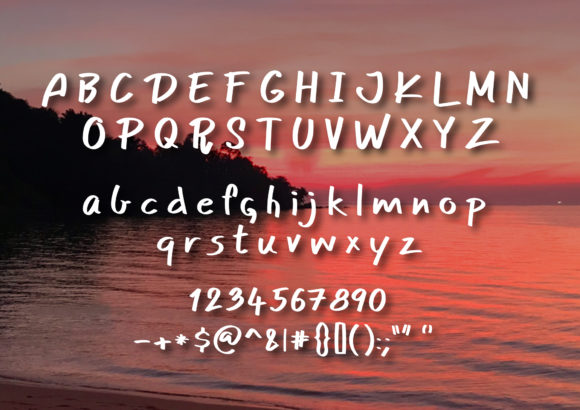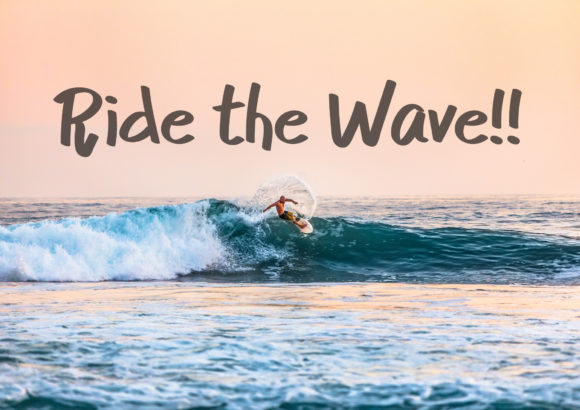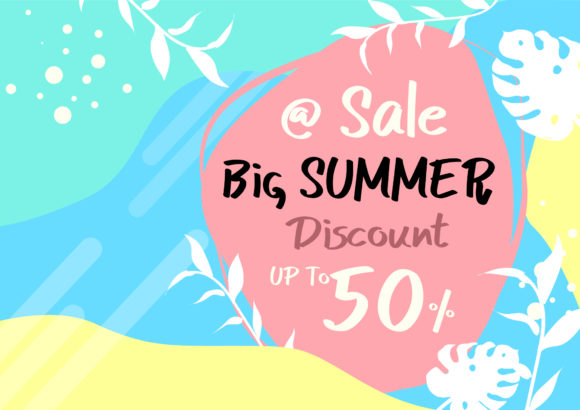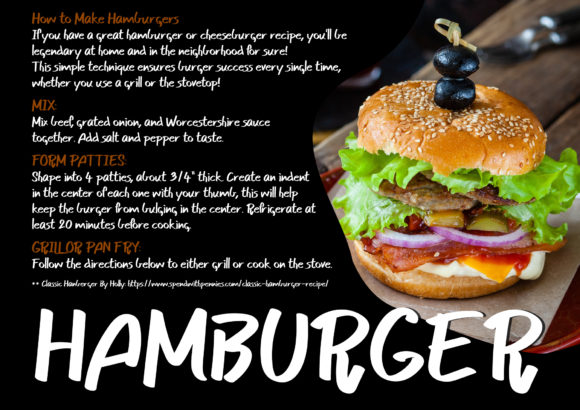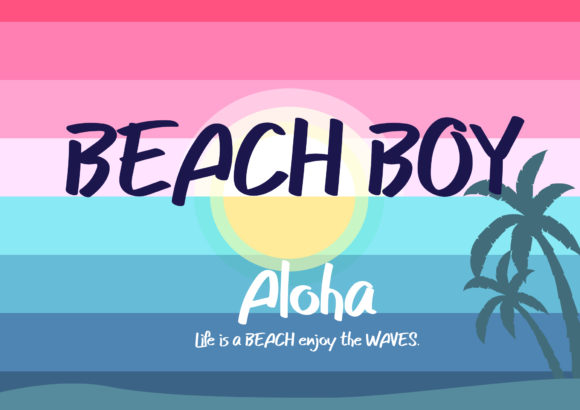
Introducing Beach Boy Font: The Perfect Addition to Your Design Toolbox
Are you tired of using the same old fonts in your designs? Look no further! Beach Boy Font is a charming and simple handwritten font that’s sure to capture your heart. Its neat and versatile style makes it an excellent choice for creating stunning stationary art, eye-catching social media posts, and so much more. In this article, we’ll dive into the world of Beach Boy Font and explore its features, benefits, and uses.
What is Beach Boy Font?
Beach Boy Font is a cute and simple handwritten font designed to bring a touch of personality to your designs. Its unique and elegant style is perfect for adding a personal touch to your creations. Whether you’re a designer, crafter, or social media enthusiast, Beach Boy Font is an excellent addition to your toolbox.
Key Features of Beach Boy Font
• Cute and Simple Design: Beach Boy Font boasts a charming and straightforward design that’s sure to capture your audience’s attention.
• Neat and Versatile Style: This font’s neat and versatile style makes it suitable for a wide range of design projects, from stationary art to social media posts.
• Handwritten Look: Beach Boy Font has a beautiful handwritten look that’s perfect for adding a personal touch to your designs.
• Easily Readable: This font is designed to be easily readable, making it perfect for body text and headings.
Benefits of Using Beach Boy Font
So, why should you choose Beach Boy Font for your design projects? Here are just a few benefits of using this amazing font:
• Unique and Eye-Catching: Beach Boy Font is a unique and eye-catching font that’s sure to set your designs apart from the crowd.
• Perfect for Branding: This font is perfect for creating a consistent brand identity, especially for businesses in the creative and lifestyle industries.
• Great for Social Media: Beach Boy Font is an excellent choice for social media posts, as it’s designed to grab attention and engage audiences.
• Crafts and DIY Projects: This font is also perfect for crafters and DIY enthusiasts who want to add a personal touch to their projects.
Using Beach Boy Font in Your Designs
Now that we’ve explored the features and benefits of Beach Boy Font, let’s talk about how to use it in your designs. Here are a few ideas to get you started:
• Stationary Art: Use Beach Boy Font to create beautiful stationary art, such as greeting cards, invitations, and gift tags.
• Social Media Posts: Add a personal touch to your social media posts with Beach Boy Font, perfect for creating eye-catching graphics and engaging captions.
• Branding and Packaging: Use Beach Boy Font to create a consistent brand identity, especially for businesses in the creative and lifestyle industries.
• Crafts and DIY Projects: Add a personal touch to your crafts and DIY projects, such as handmade jewelry, candles, and home decor.
Tips and Tricks for Getting the Most Out of Beach Boy Font
Here are a few tips and tricks for getting the most out of Beach Boy Font:
• Experiment with Colors: Beach Boy Font looks great in a variety of colors, so don’t be afraid to experiment and find the perfect hue for your design.
• Mix and Match Fonts: Combine Beach Boy Font with other fonts to create a unique and eye-catching design.
• Use it for Headings and Body Text: Beach Boy Font is suitable for both headings and body text, making it a versatile addition to your design toolbox.
Font Name Beach Boy Font
Author BB Type Studios
In conclusion, Beach Boy Font is a charming and simple handwritten font that’s perfect for adding a personal touch to your designs. Its neat and versatile style makes it suitable for a wide range of design projects, from stationary art to social media posts. With its unique and eye-catching design, Beach Boy Font is sure to capture your audience’s attention and set your designs apart from the crowd.